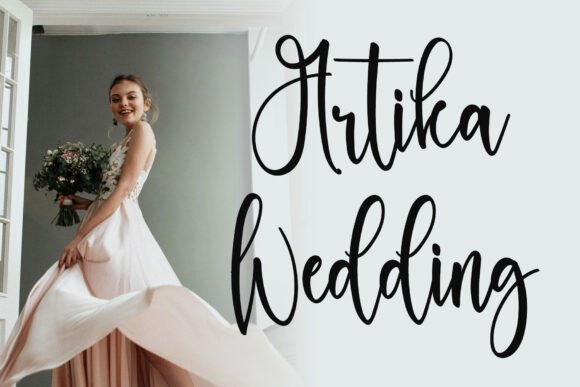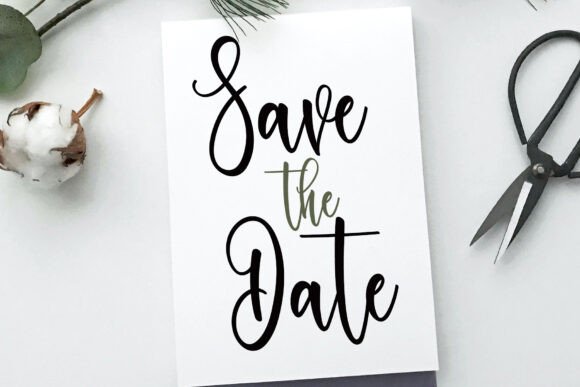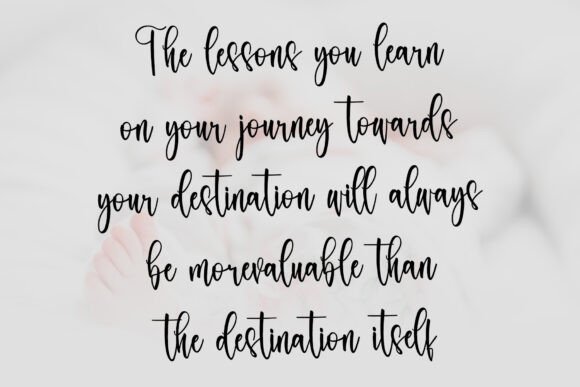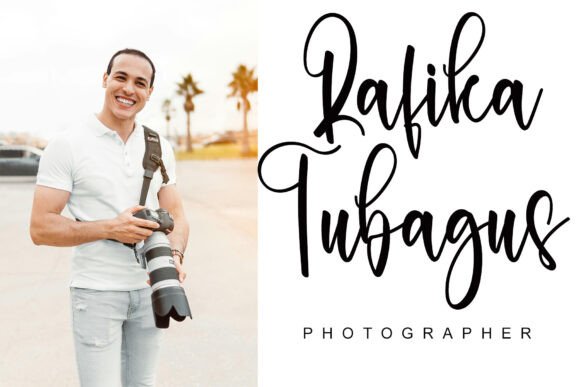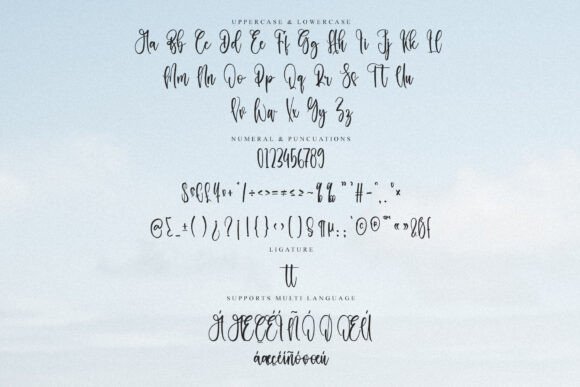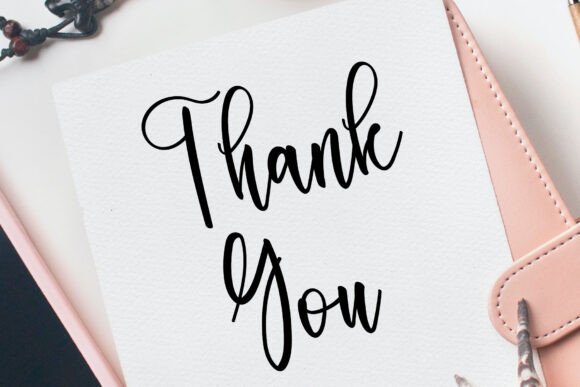
Introducing Chilly Winter Font: Add a Touch of Holiday Magic to Your Designs
As the winter season approaches, designers and crafters are on the lookout for festive and playful typefaces to add a touch of holiday magic to their Christmas cards, decorations, and more. Look no further than the Chilly Winter Font, a whimsical and enchanting typeface that’s perfect for spreading joy and cheer during the holiday season.
What Makes Chilly Winter Font So Special?
Chilly Winter Font is a carefully crafted typeface that’s designed to bring a touch of festive fun to your designs. With its playful and elegant swashes, this font is perfect for adding a touch of holiday magic to your Christmas cards, decorations, and more. Whether you’re a designer, crafter, or DIY enthusiast, Chilly Winter Font is the perfect addition to your font collection.
Key Features of Chilly Winter Font
- Festive and Playful Design: Chilly Winter Font features a festive and playful design that’s perfect for the holiday season.
- Enchanting Swashes: The font is adorned with enchanting swashes that add a touch of elegance and sophistication to your designs.
- PUA Encoded: Chilly Winter Font is PUA encoded, which means you can access all of the amazing glyphs and ligatures with ease.
- Perfect for Christmas Cards and Decorations: This font is perfect for adding a touch of holiday magic to your Christmas cards, decorations, and more.
How to Use Chilly Winter Font
Using Chilly Winter Font is easy, even if you’re not a seasoned designer. Here are a few tips to get you started:
- Pair it with Other Fonts: Pair Chilly Winter Font with other fonts to create a unique and eye-catching design.
- Use it for Headings and Titles: Use Chilly Winter Font for headings and titles to add a touch of festive fun to your designs.
- Experiment with Swashes: Experiment with the enchanting swashes to add a touch of elegance and sophistication to your designs.
Why Designers and Crafters Love Chilly Winter Font
Designers and crafters love Chilly Winter Font for its unique and festive design. Here are a few reasons why:
- Unique and Festive Design: Chilly Winter Font features a unique and festive design that’s perfect for the holiday season.
- Easily Accessible Glyphs and Ligatures: The font is PUA encoded, which means you can access all of the amazing glyphs and ligatures with ease.
- Perfect for a Variety of Projects: Chilly Winter Font is perfect for a variety of projects, including Christmas cards, decorations, and more.
If you’re looking for a festive and playful typeface to add a touch of holiday magic to your designs, look no further than Chilly Winter Font. With its enchanting swashes and PUA encoded glyphs and ligatures, this font is perfect for designers and crafters who want to spread joy and cheer during the holiday season.